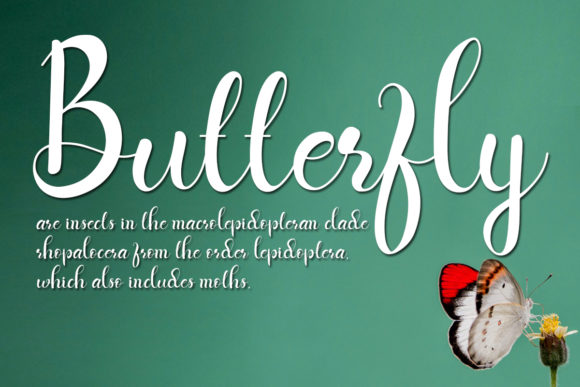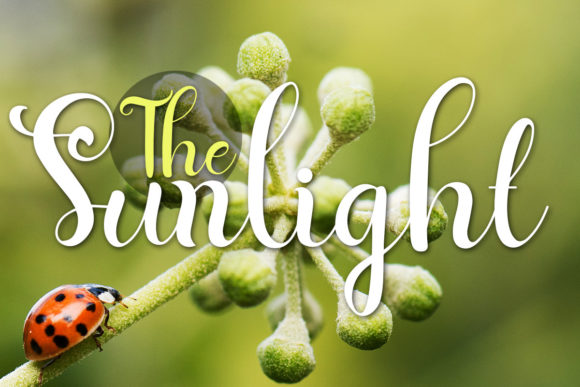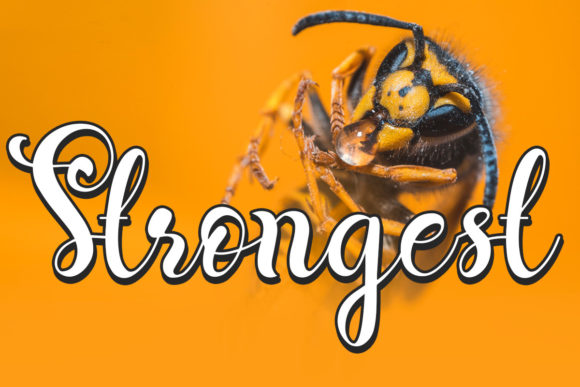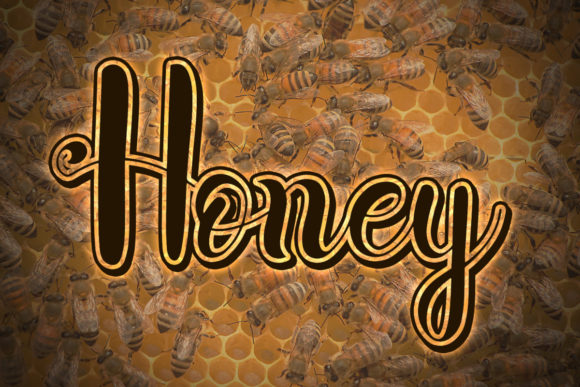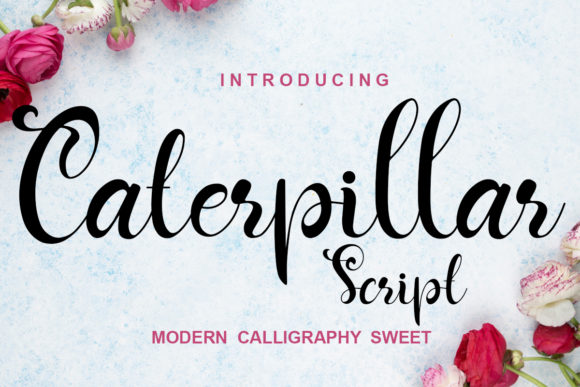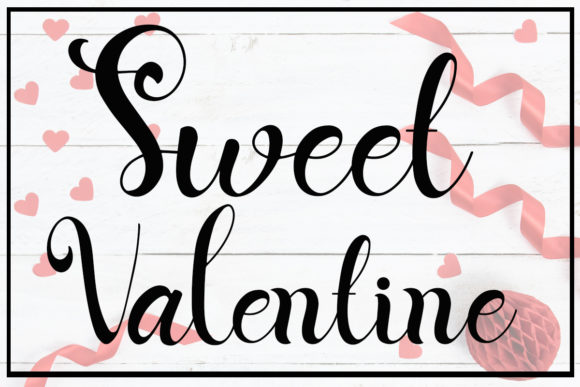
Caterpillar Script Font: The Perfect Choice for Elegant and Charming Designs
Are you looking for a font that exudes elegance and charm? Look no further than the Caterpillar Script Font. This beautiful font is perfect for designers and crafters who want to add a touch of sophistication and whimsy to their designs. In this article, we’ll take a closer look at the Caterpillar Script Font and explore its many uses.
What is Caterpillar Script Font?
Caterpillar Script Font is a stunning script font that feels equally charming and elegant. Its flowing lines and delicate curves make it perfect for adding a handwritten touch to any design. Whether you’re working on a wedding invitation, a thank you card, or a logo, this font is sure to impress.
Characteristics of Caterpillar Script Font
The Caterpillar Script Font has several characteristics that make it stand out from other fonts. Some of its key features include:
- Elegant and charming: The Caterpillar Script Font has a sophisticated and whimsical feel that makes it perfect for designs that require a touch of elegance.
- Handwritten look: This font has a handwritten look that makes it perfect for designs that require a personal touch.
- Flowing lines: The Caterpillar Script Font has flowing lines that make it easy to read and visually appealing.
- Delicate curves: The font’s delicate curves add to its elegance and charm.
Uses of Caterpillar Script Font
The Caterpillar Script Font is versatile and can be used for a variety of designs, including:
- Wedding invitations: This font is perfect for wedding invitations, as it adds a touch of elegance and sophistication.
- Thank you cards: The Caterpillar Script Font is also great for thank you cards, as it adds a personal touch.
- Quotes: This font is perfect for quotes, as it makes the text stand out.
- Greeting cards: The Caterpillar Script Font is great for greeting cards, as it adds a touch of whimsy and elegance.
- Logos: This font can also be used for logos, as it adds a touch of sophistication.
- Business cards: The Caterpillar Script Font is perfect for business cards, as it adds a personal touch.
Why Choose Caterpillar Script Font?
There are many reasons why you should choose the Caterpillar Script Font for your designs. Some of the benefits of using this font include:
- Unique look: The Caterpillar Script Font has a unique look that sets it apart from other fonts.
- Elegant and charming: This font is both elegant and charming, making it perfect for designs that require a touch of sophistication.
- Easy to read: The Caterpillar Script Font is easy to read, making it perfect for designs that require a lot of text.
- Versatile: This font is versatile and can be used for a variety of designs.
Tips for Using Caterpillar Script Font
Here are some tips for using the Caterpillar Script Font:
- Use it sparingly: While the Caterpillar Script Font is beautiful, it can be overwhelming if used too much. Use it sparingly to add a touch of elegance to your designs.
- Pair it with other fonts: This font pairs well with other fonts, such as sans serif fonts. Experiment with different pairings to find the one that works best for your design.
- Adjust the size: The Caterpillar Script Font can be used at different sizes, but it’s best to use it at a larger size to showcase its elegance.
In conclusion, the Caterpillar Script Font is a beautiful and versatile font that is perfect for designers and crafters who want to add a touch of elegance and charm to their designs. Its flowing lines, delicate curves, and handwritten look make it perfect for a variety of designs, including wedding invitations, thank you cards, quotes, greeting cards, logos, and business cards. With its unique look, elegant and charming feel, and ease of use, the Caterpillar Script Font is a great choice for any design project.